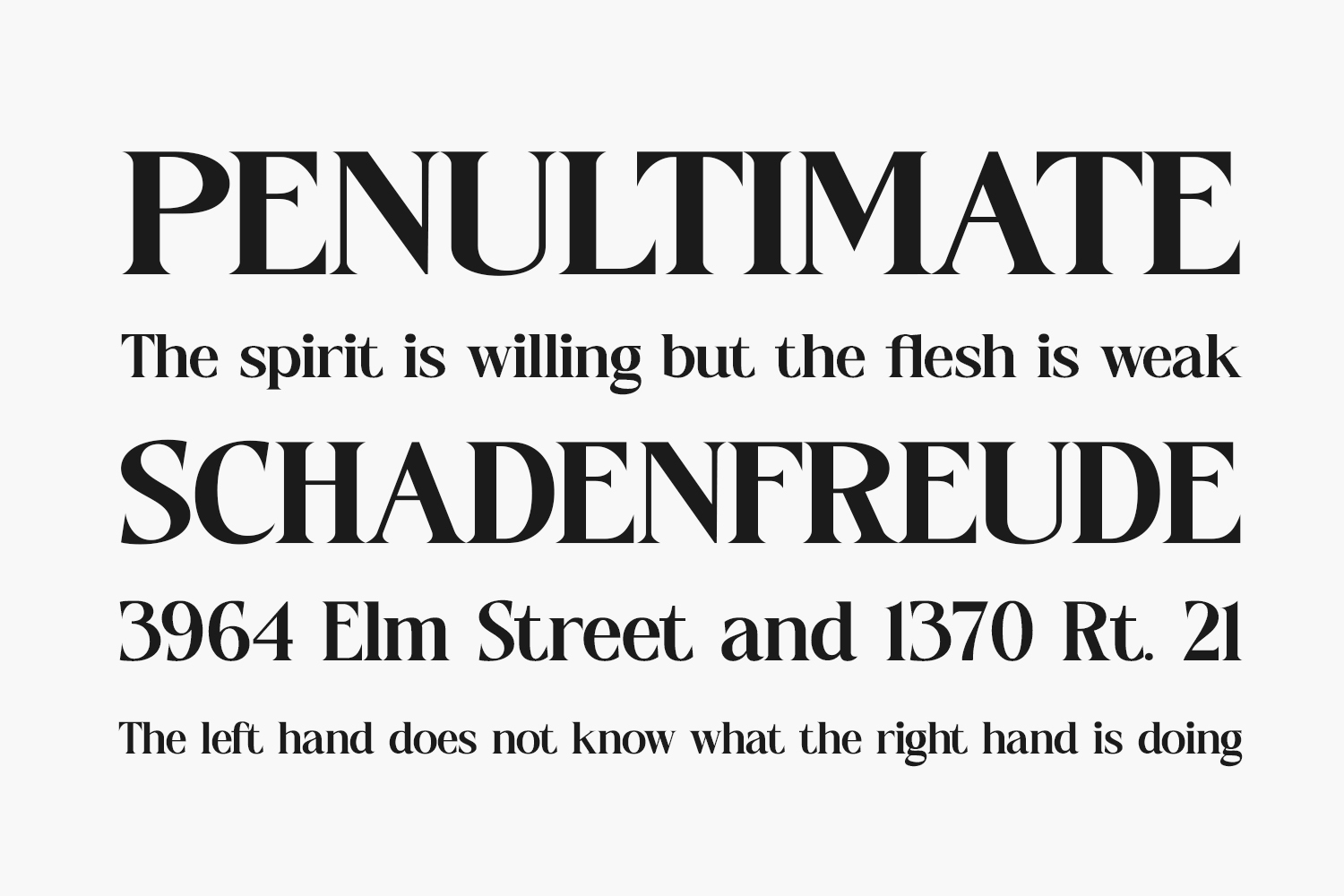
Fantasy Magist Free Font epitomizes contemporary elegance with its stylish serif font. Discover its remarkable versatility and let it inspire stunning wedding invitations, captivating stationary art, attention-grabbing social media posts, and a multitude of other creative endeavors. Fantasy Magist Free Font is free for personal use only. Please purchase the full version for commercial use.